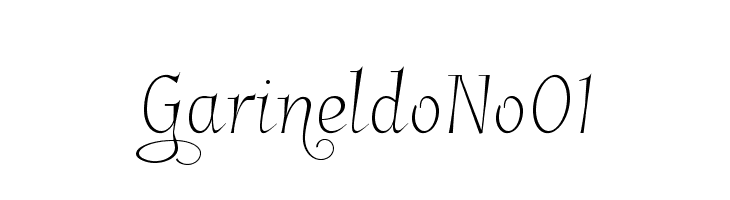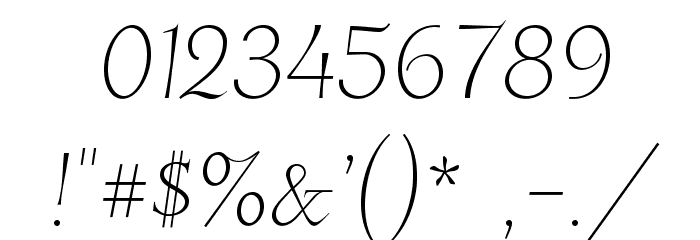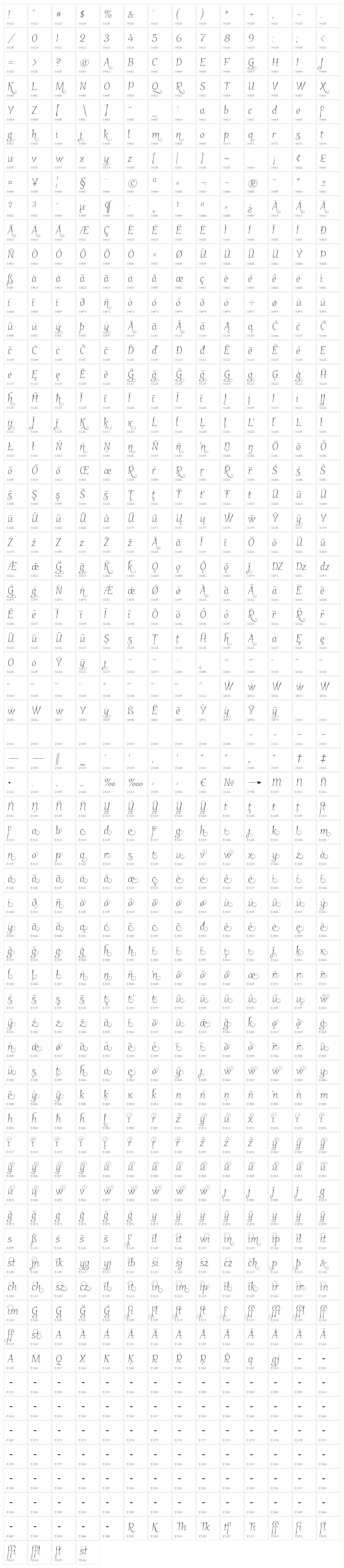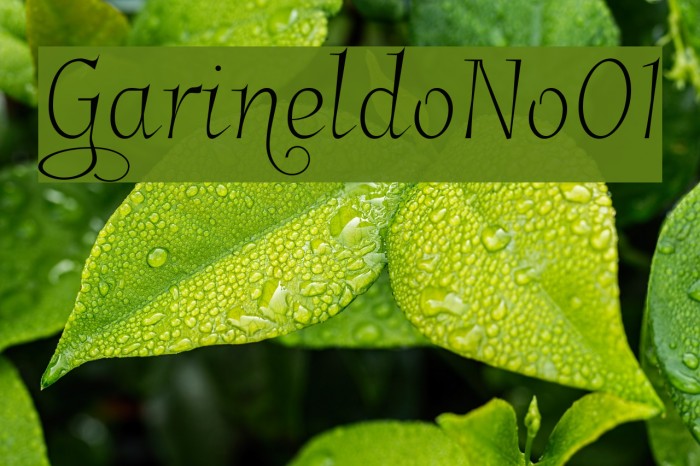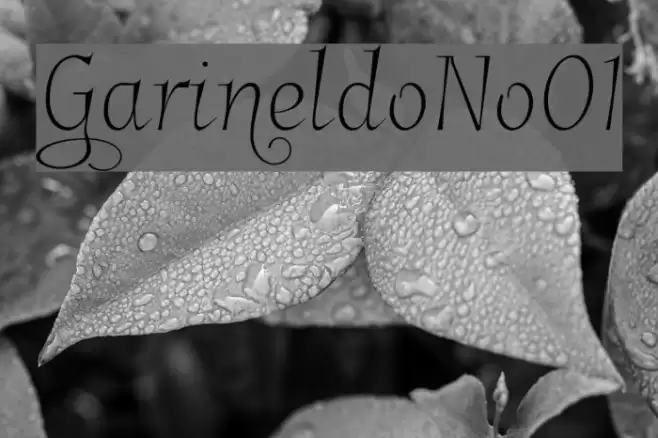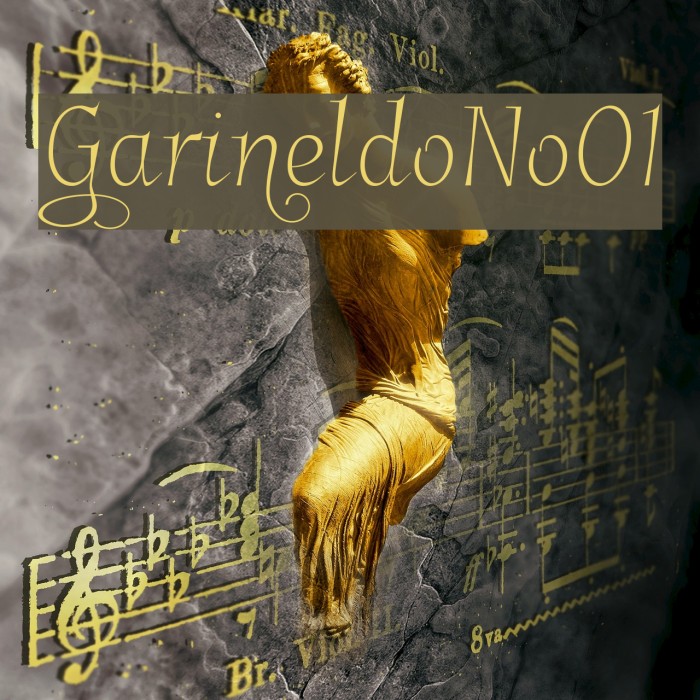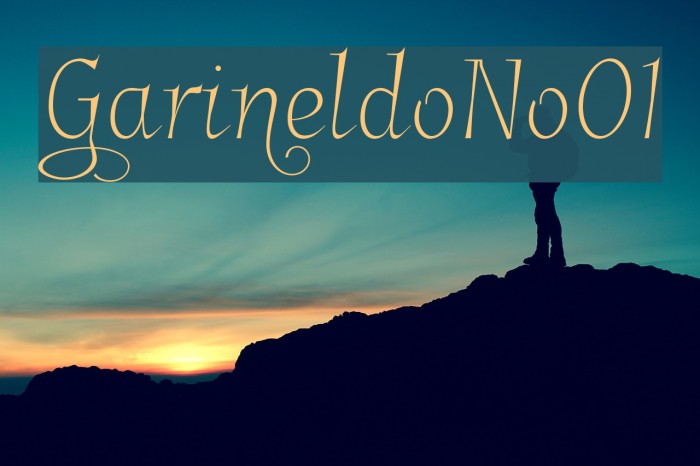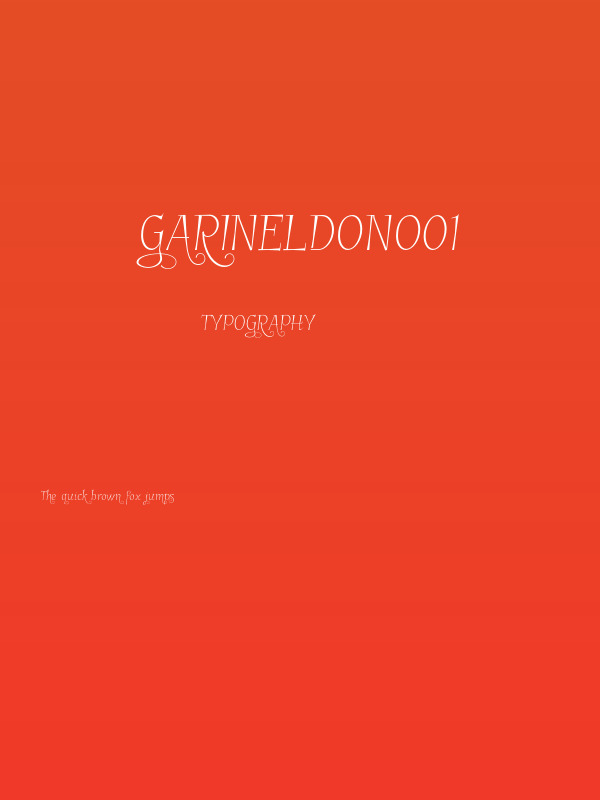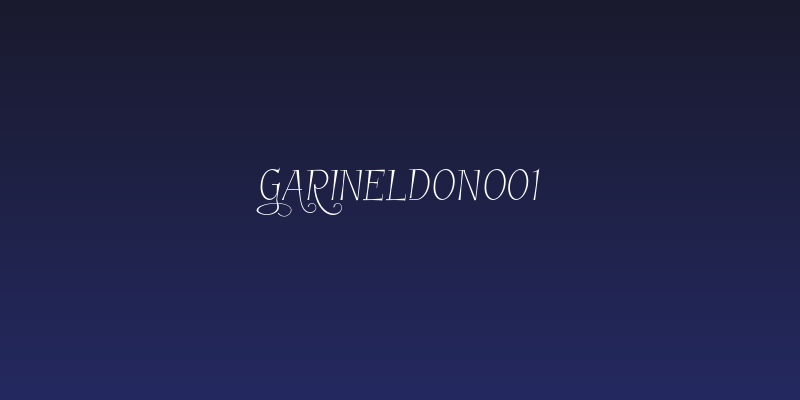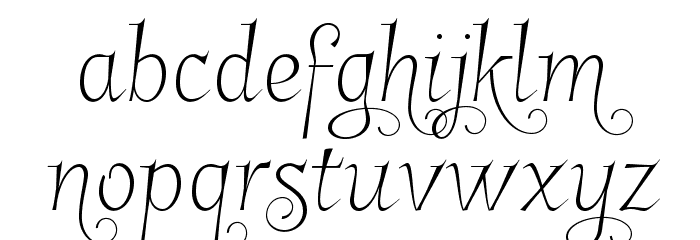
GarineldoNo01 Font
GarineldoNo01 Description
This elegant and sophisticated font features a script style with delicate, flowing lines and intricate swashes. The uppercase letters are tall and slender, with graceful curves and flourishes that add a touch of refinement. The lowercase letters maintain a consistent style, with smooth connections and decorative elements that enhance their visual appeal. The numerals are designed with a similar elegance, featuring slight curves and a refined appearance. The special characters complement the overall style, maintaining the decorative and flowing nature of the font.
| Use Case | Invitations, Branding, Headlines |
| Proposed Projects | Ideal for wedding invitations, luxury branding, elegant packaging, and decorative headlines. |